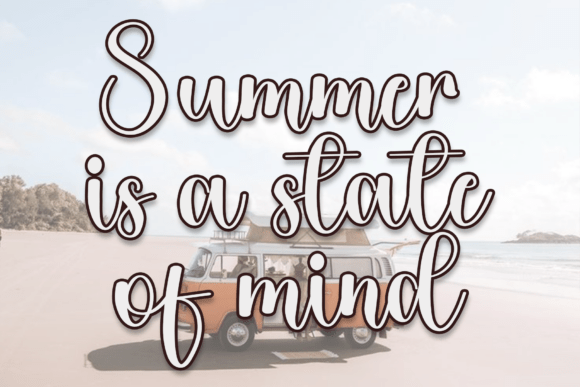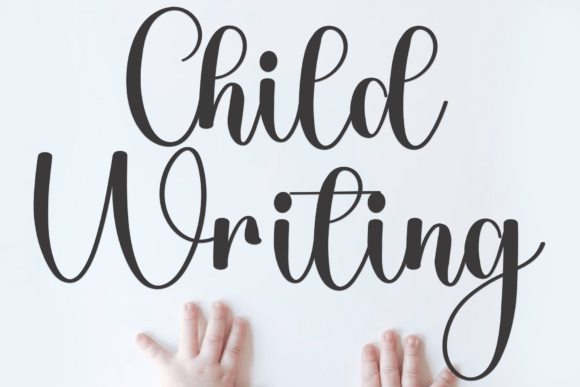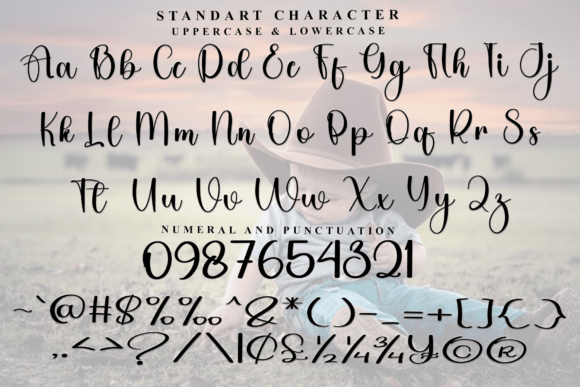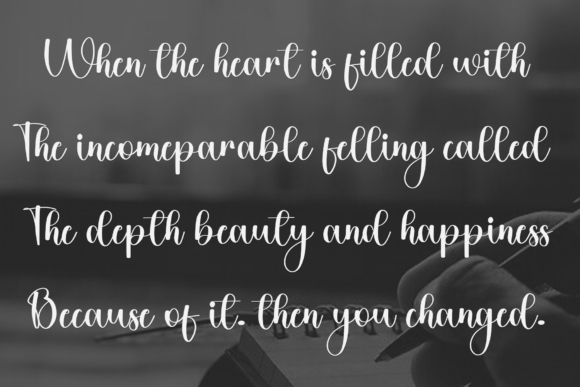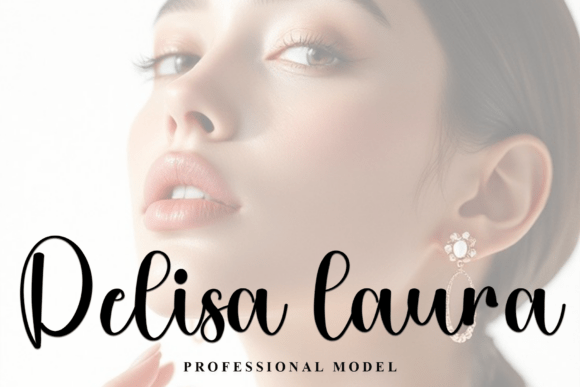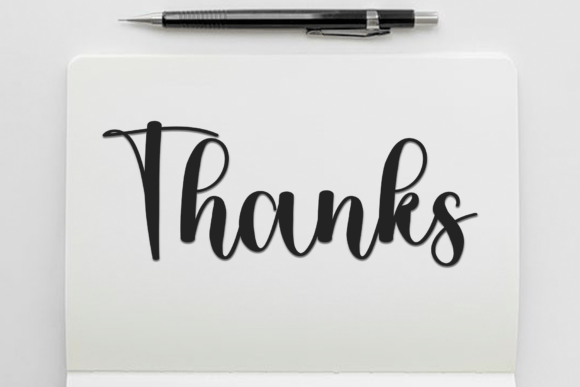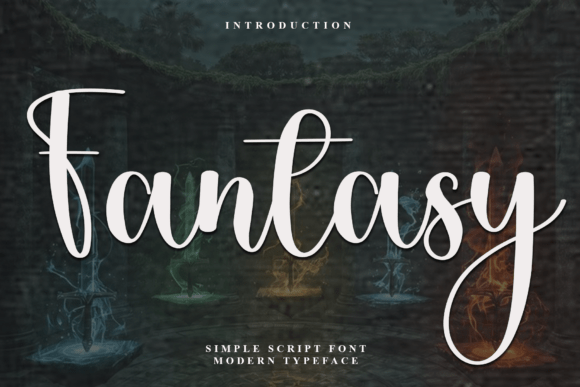
Fantasy Font: Elevate Your Designs with a Touch of Whimsy
Are you tired of using the same old fonts in your designs? Look no further than the Fantasy Font, a beautiful and eye-catching typeface that adds a soft, unique touch to any project. With its distinctive strokes and special character, this font is sure to make your designs stand out and leave a lasting impression on your audience.
The Beauty of Fantasy Font
Fantasy Font is a meticulously crafted font, designed to bring a touch of magic to your designs. Its soft, rounded edges and unique strokes give it a distinctive look that’s both elegant and playful. Whether you’re working on a design project, crafting a logo, or creating a work of art, this font is sure to add a touch of whimsy and personality to your work.
One of the best things about Fantasy Font is its versatility. With a wide range of characters and symbols, you can use it to create a variety of designs, from simple and elegant to complex and ornate. Whether you’re designing a business card, a brochure, or a website, this font is sure to adapt to your needs and enhance your design.
Fantasy Font is a dream come true for designers and crafters. Its unique and eye-catching design makes it perfect for a wide range of projects, including:
• Logo design: Create a memorable and impactful logo that stands out from the crowd.
• Brochures and flyers: Add a touch of elegance and sophistication to your marketing materials.
• Business cards: Make a lasting impression with a beautifully designed business card.
• Crafts: Use Fantasy Font to add a personal touch to your handmade crafts, such as cards, gift tags, and scrapbook pages.
Why Choose Fantasy Font?
So why choose Fantasy Font over other fonts? Here are just a few reasons:
• Unique and eye-catching design: Fantasy Font is sure to make your designs stand out from the crowd.
• Versatility: This font can be used for a wide range of projects and applications.
• High-quality: This font is meticulously crafted to ensure high-quality and crisp lines, even at small sizes.
Get Creative with Fantasy Font
Ready to unleash your creativity with Fantasy Font? Here are some tips to get you started:
• Experiment with different font sizes and styles to add depth and interest to your designs.
• Use Fantasy Font in combination with other fonts to create a unique and eye-catching design.
• Don’t be afraid to get creative and try new things – Fantasy Font is designed to inspire and spark your imagination.